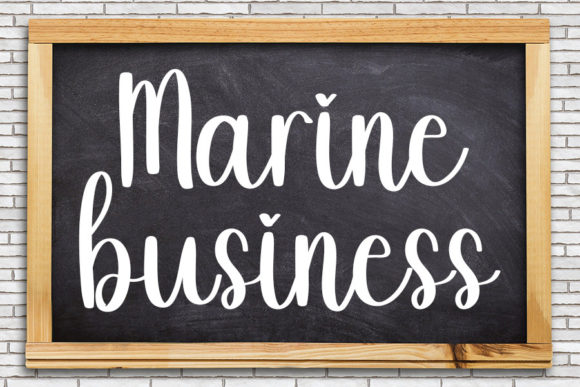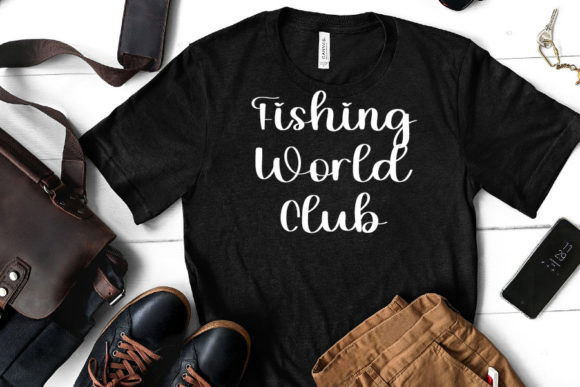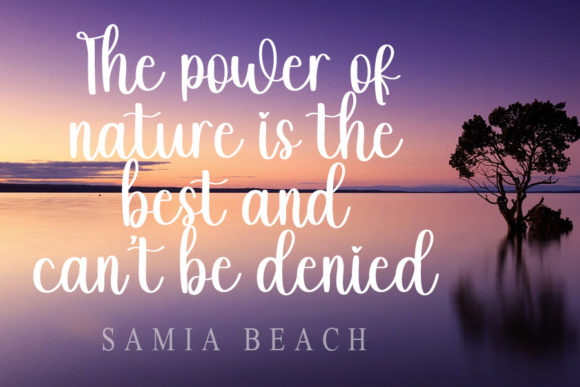
Introduction to Nightfish Font
Nightfish is a fun and delicate handwritten font.
It can nicely enhance the look of your projects with its naturally attractive and authentic characters .
Key Features of Nightfish Font
Why Choose Nightfish Font?
Nightfish Font offers exceptional quality and versatility, making it a valuable addition to your design toolkit. Whether you’re creating for personal projects or commercial use, Nightfish Font delivers professional results.